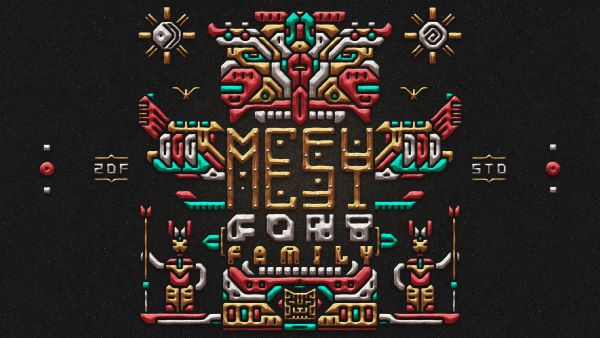
MESY Font
MESY font by 2DFUNS is a display and ancient font family rooted in the graphic traditions of Mesoamerican visual culture — the bold, geometric, and architecturally rigorous aesthetic of Maya and Aztec font design systems that have influenced decorative arts and display typography for over a century. The free version — MESY Guako — is released for personal and commercial use, while the full family offers three fonts (Oquntaro, Aruno, and Guako) with further additions planned.